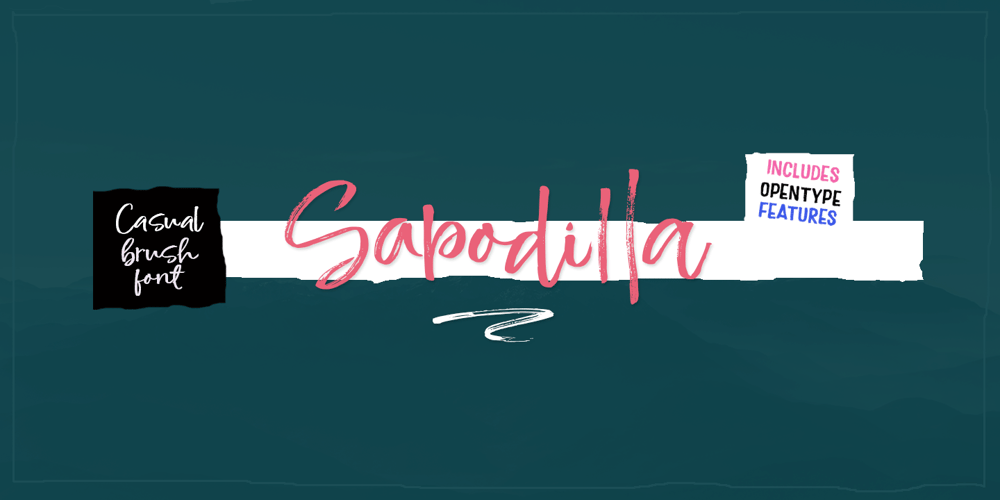
Sapodilla
Sapodilla font
Sapodilla Font Family was designed by Niza Fahmi and published by Fran Studio. Sapodilla contains 2 styles and family package options. Sapodilla is a new, very interesting brushed font. This font family is perfect for branding projects, logos, product packaging, posters, invitations, greeting cards, news, blogs, everything including personal charm and more.Sapodilla offers OpenType features, some ligatures and swashes, initial and terminal letters, and International support for most Western Languages.To enable the OpenType Stylistic alternates, you need a program that supports OpenType features such as Adobe Illustrator CS, Adobe Indesign & CorelDraw X6-X7, Microsoft Word 2010 or later versions.How to access all alternative characters, using Windows Character Map with Photoshop: https://www.youtube.com/watch?v=Go9vacoYmBwHow to access all alternative characters using Adobe Illustrator: http://youtu.be/iptSFA7feQ0nnSapodilla is coded with PUA Unicode, which allows full access to all the extra characters without having special designing software. Mac users can use Font Book , and Windows users can use Character Map to view and copy any of the extra characters to paste into your favorite text editor/app.Thanks so much for looking and please let me know if you have any questions.